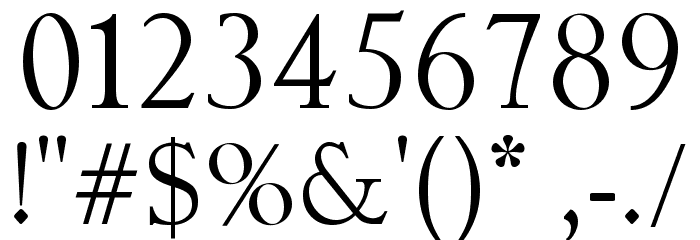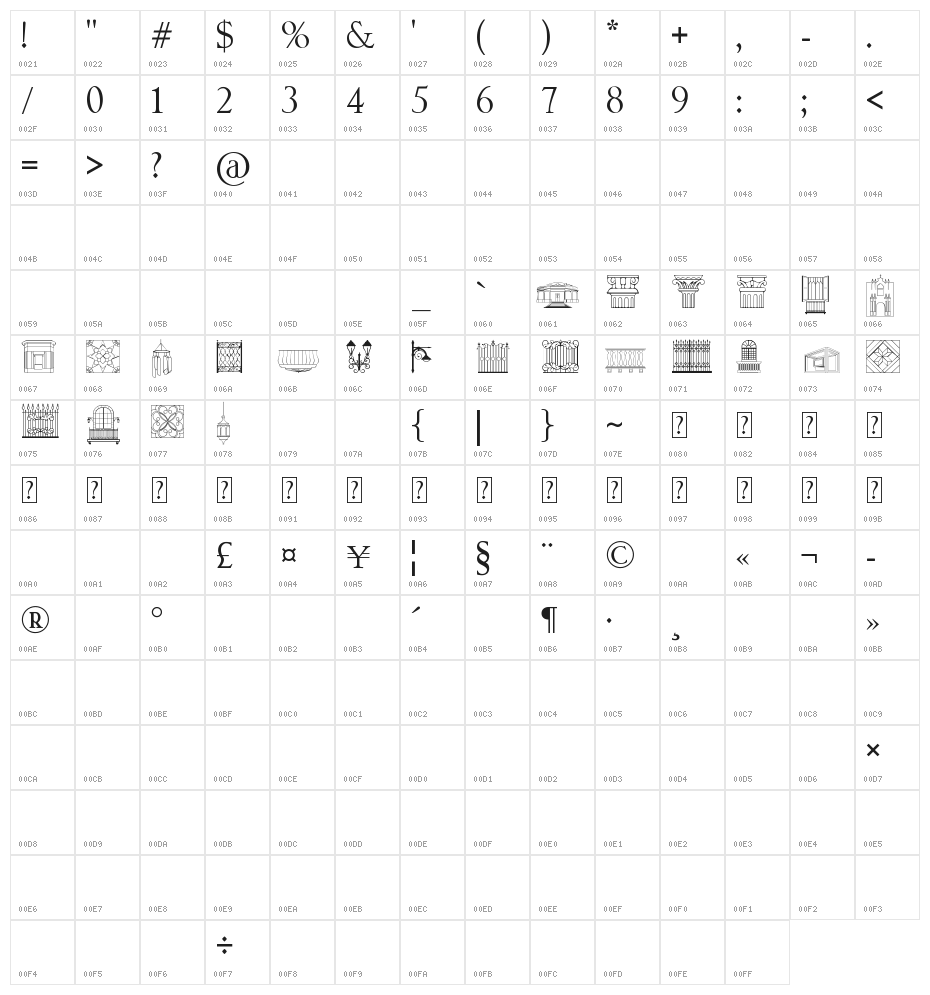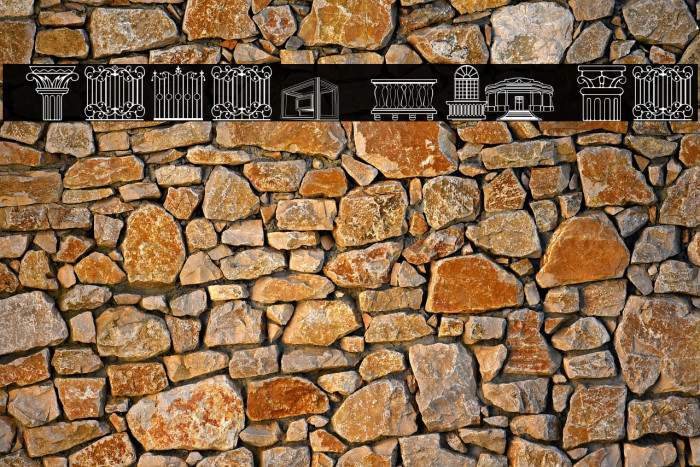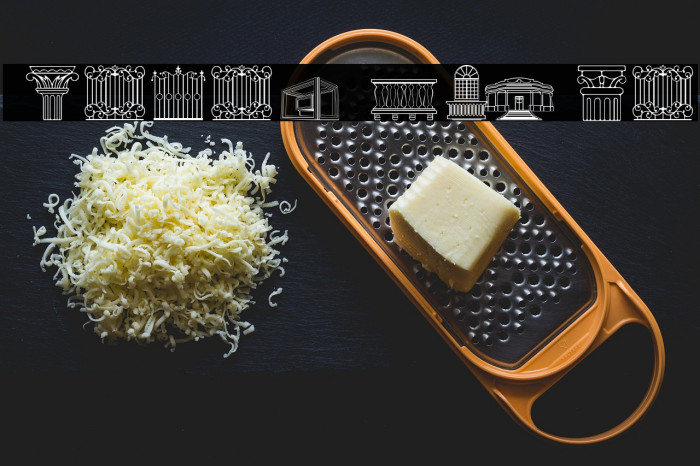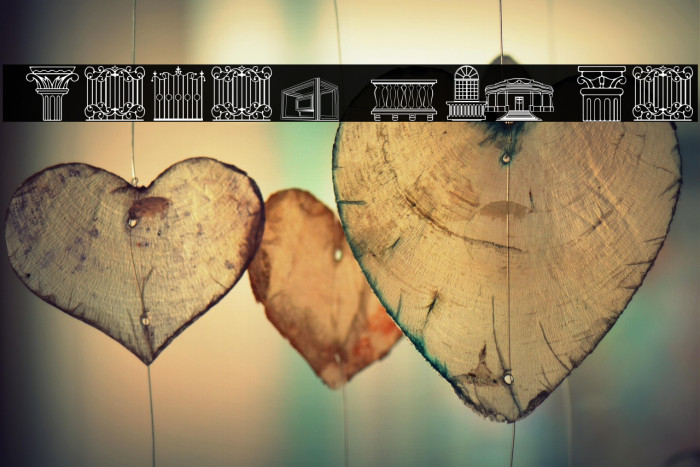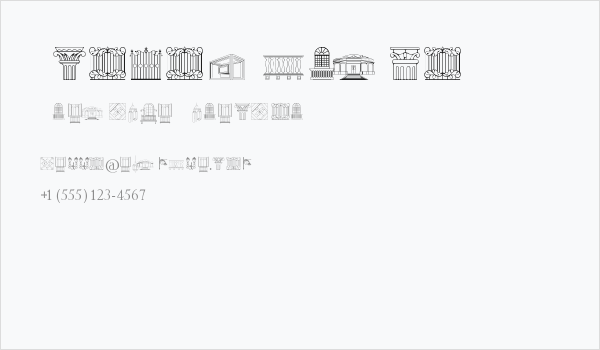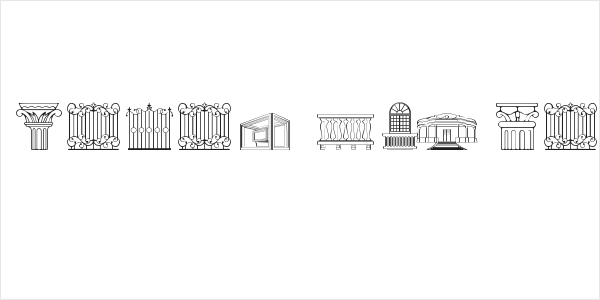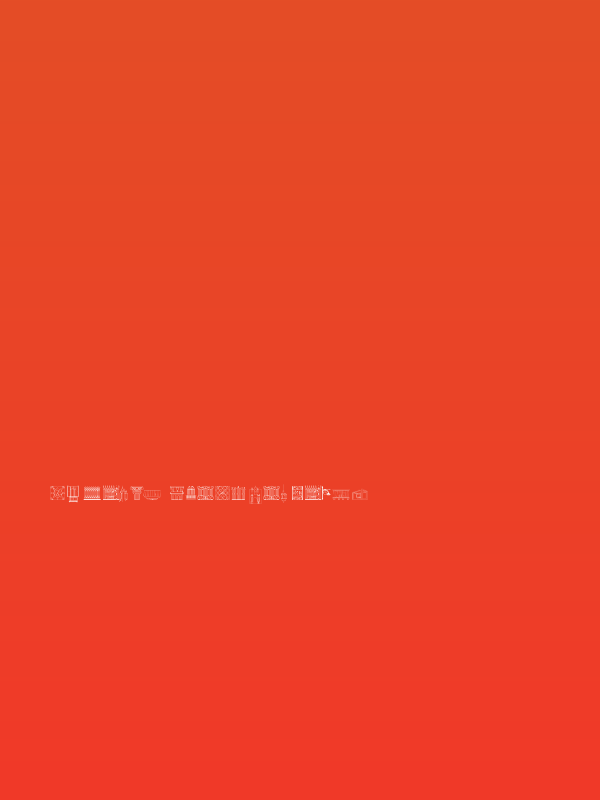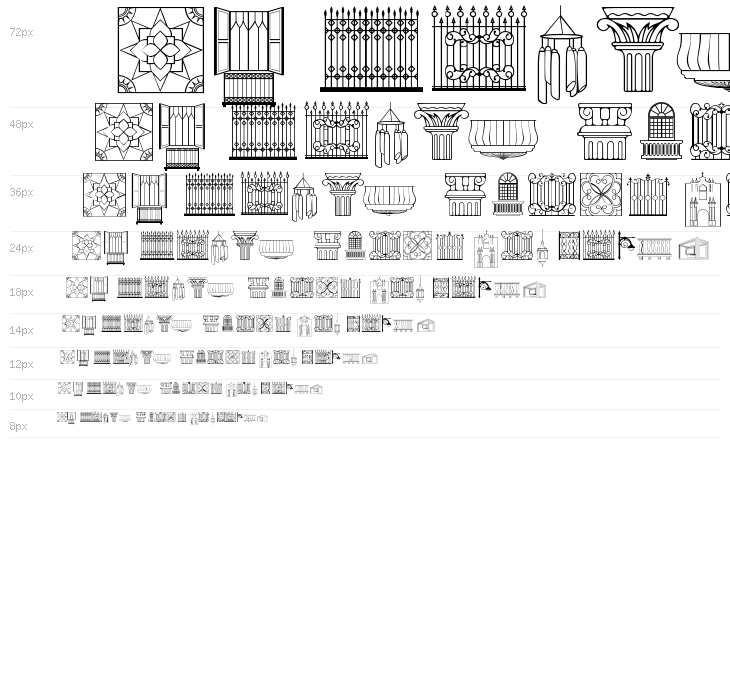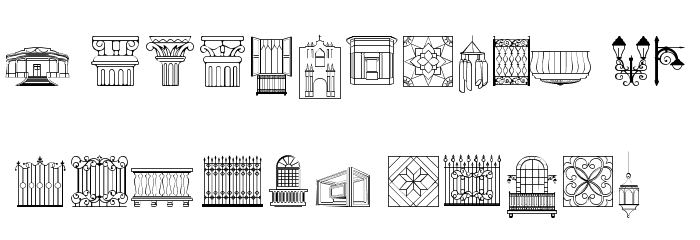
Iconos prado Font
Iconos prado Description
This font features a classic serif style with elegant and refined strokes, embodying a timeless aesthetic. The numerals are crafted with a traditional flair, showcasing a balance between thick and thin lines that enhance readability and sophistication. The special characters are designed with a similar attention to detail, ensuring consistency across the typeface. The overall appearance is reminiscent of historical and architectural influences, making it suitable for projects that require a touch of elegance and tradition.
| Proposed Projects | Ideal for use in formal invitations, historical publications, luxury branding, and editorial design. |